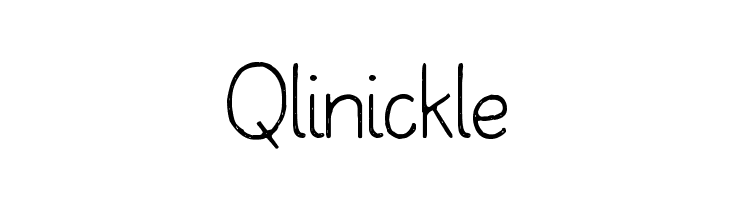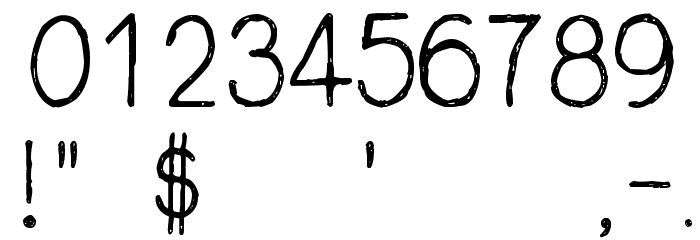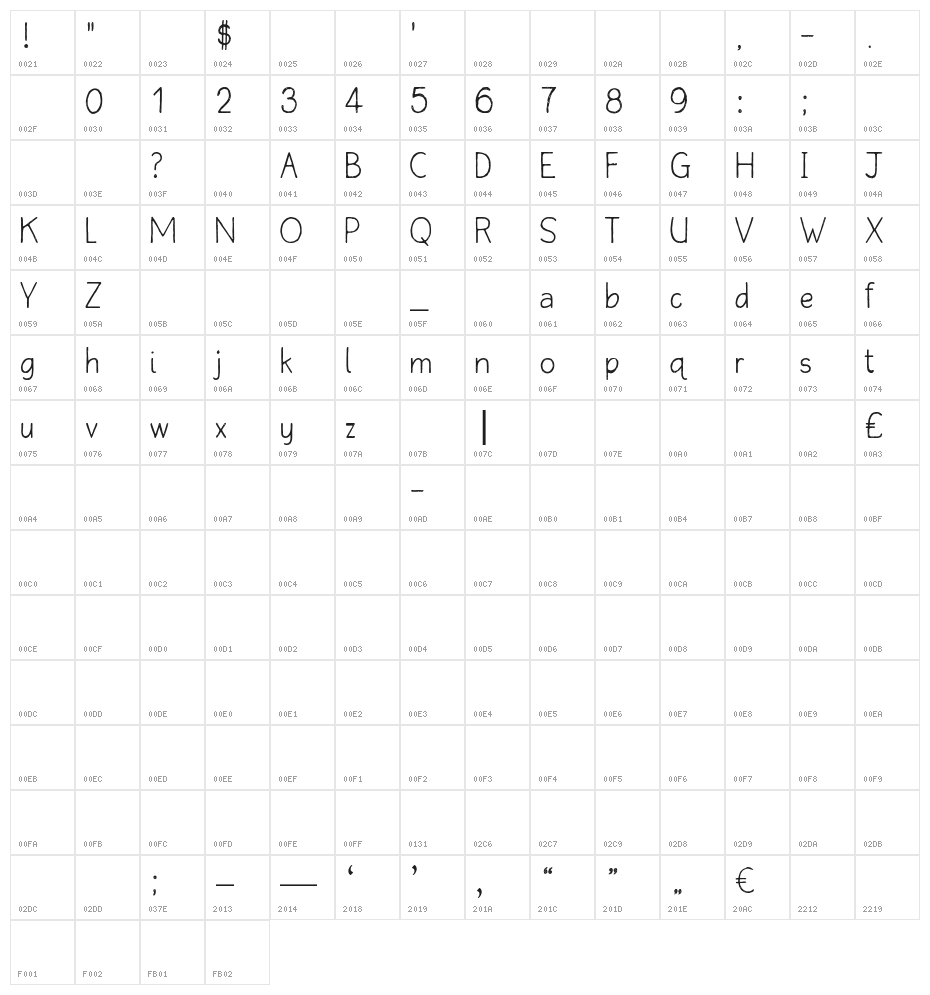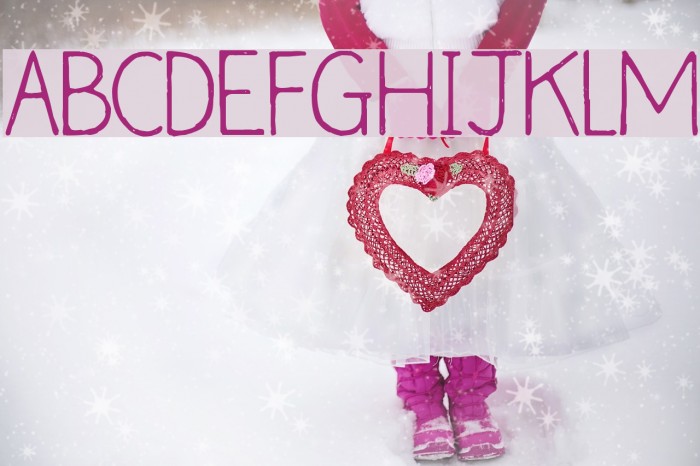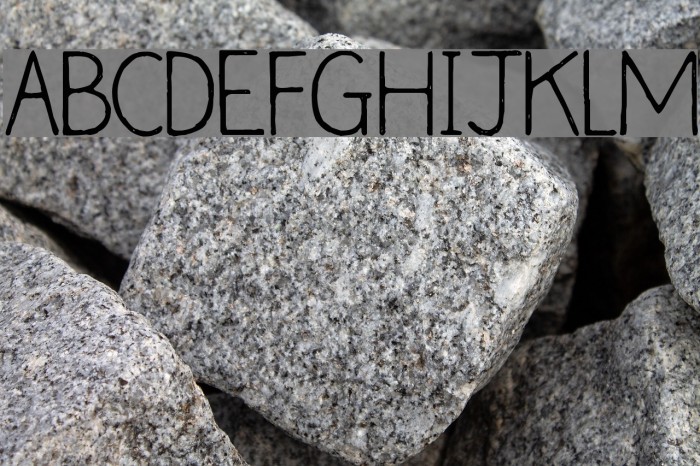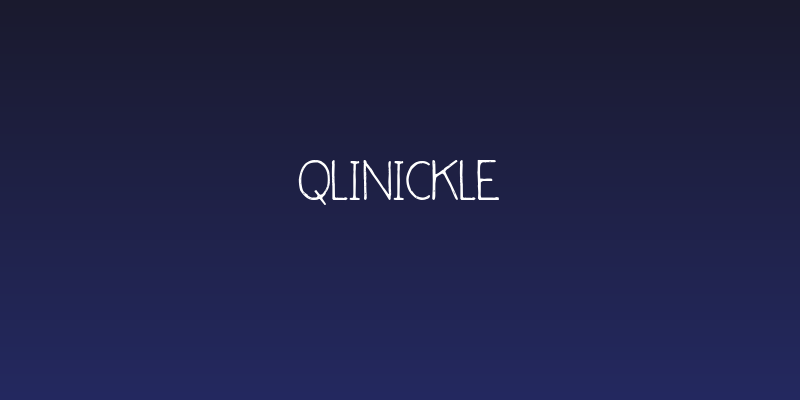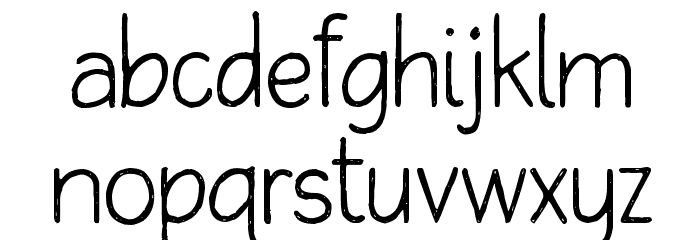
Qlinickle Font
Qlinickle Description
This font features a playful and informal handwritten style, characterized by its uneven strokes and slightly irregular letterforms. The uppercase and lowercase letters maintain a consistent height, giving it a cohesive appearance despite its casual nature. The numerals and special characters follow the same style, ensuring uniformity across all glyphs. The strokes are moderately thick, providing good legibility while retaining a friendly and approachable feel. This font is ideal for projects that require a personal touch, such as invitations, greeting cards, or casual branding.
| Use Case | Headlines, Informal text, Personal projects |
| Proposed Projects | Ideal for invitations, greeting cards, personal branding, and informal communication. |